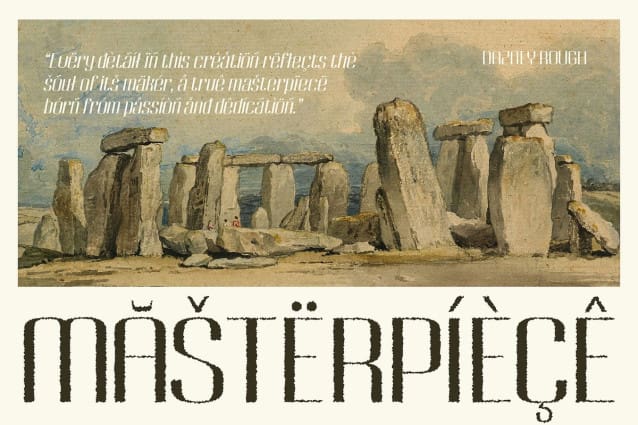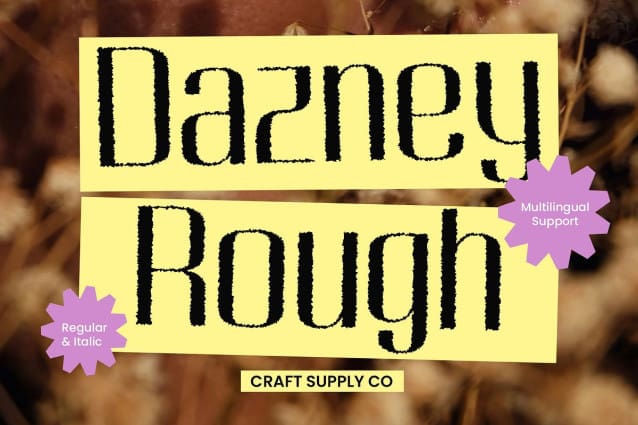
Dazney Rough Font
Dazney Rough is a modern sans-serif font featuring a sleek, condensed design that conveys efficiency and contemporary appeal. Its narrow, space-saving form ensures optimal readability in tight spaces while maintaining a bold presence, making it ideal for designs where space is limited but impact is crucial.
Rough Effect for a Distinctive Edge What sets Dazney Rough apart is its textured, organic rough effect. This design element introduces an imperfect, hand-crafted feel, adding character and depth to each letter. The roughness gives the font a daring, edgy quality, creating a striking contrast against its clean, modern form.
Versatile for Dynamic and Character-Driven Designs Perfect for projects such as branding, posters, editorial designs, and more, Dazney Rough adds a unique touch to any design. Its balance of modernity and texture makes it suitable for creative endeavors that aim to stand out and evoke boldness, energy, and individuality.
Ideal for Designs Seeking a Strong, Memorable Impression Dazney Rough is perfect for designs that want to project a sense of modern dynamism combined with organic character. Whether you are working on branding, promotional materials, or edgy editorial designs, this font makes a memorable impact with its sleek and textured appearance.